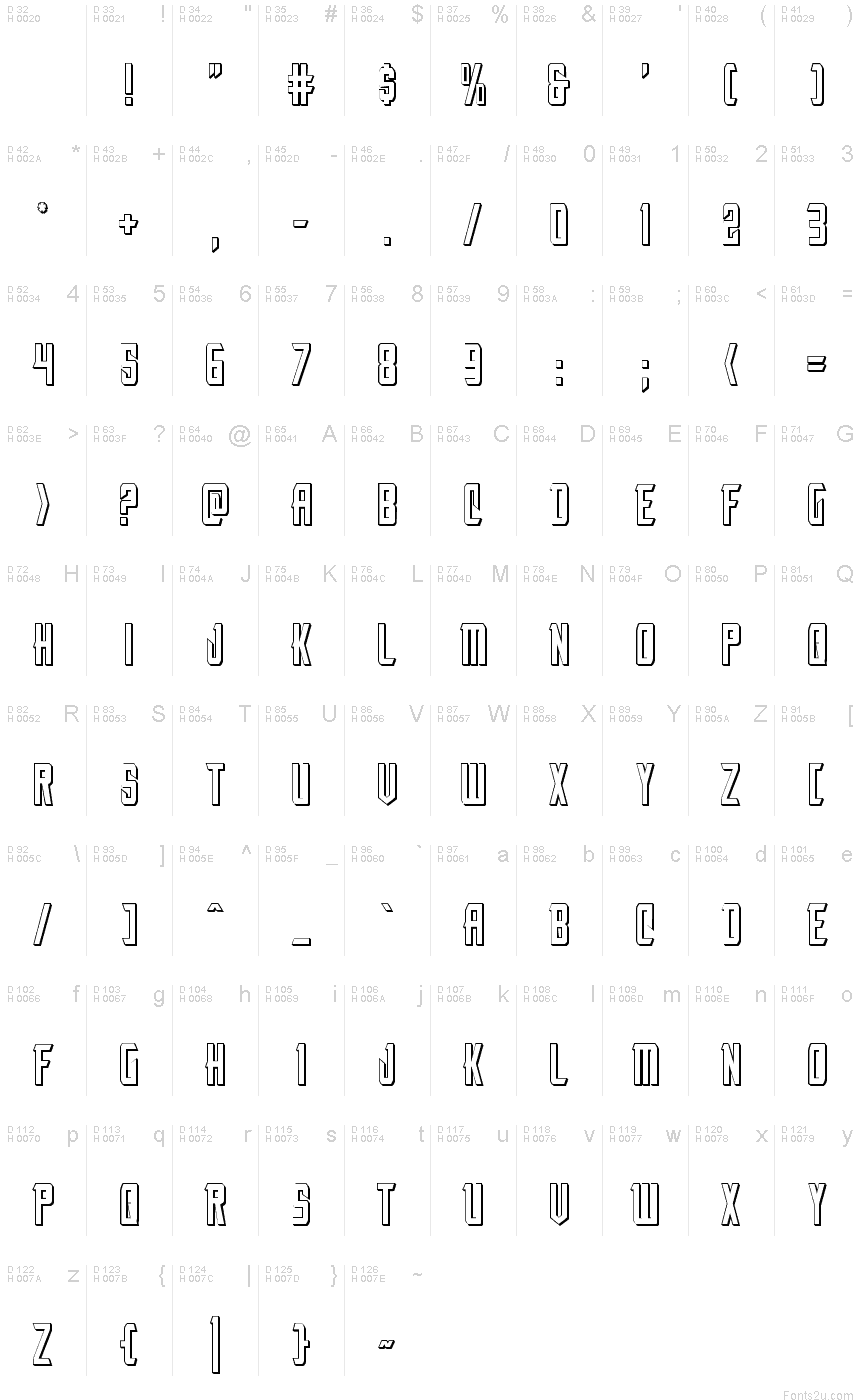
Nemesis Enforcer 3D, created by Iconian Fonts in 2012, is a free futuristic 3D display font with the severe proportions of arcade and action titles. Tall, tightly packed capitals combine straight sides with clipped corners and sharply angled joins. A slim offset edge gives the forms a hard, machined depth.
It is strongest on game title screens, where its compressed build and industrial outline can suggest armored machinery or a hostile computer system. The same steel-cut look suits esports merchandise and science-fiction posters, especially around spacecraft, robots, or mechanical textures. Soundtrack covers and event graphics are also credible uses, but action-game branding is its clearest home.